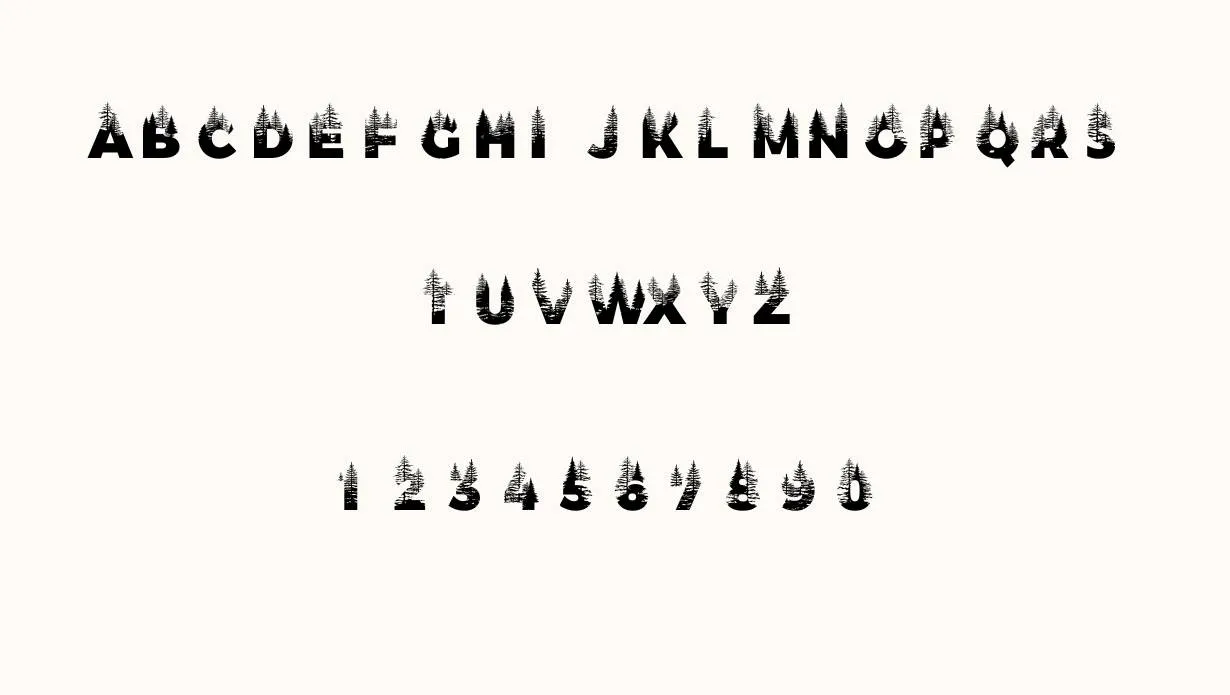
Forests Layered Font provides a flexible and layered typeface with an innovative design. It is frequently utilized for branding, advertising, and projects that demand a distinctive and attention-grabbing visual identity.
The font’s layered style allows for a wide range of creative possibilities, making it a favorite choice for designers seeking to stand out. To add pleasantness and precision to your design, consider pairing the typeface style with other typefaces, such as the Mantika Sans Font, which you can find on our website.
Forests Layered Font Family
| Name | Forests Layered Font |
| Designer | Zeppelin Graphics |